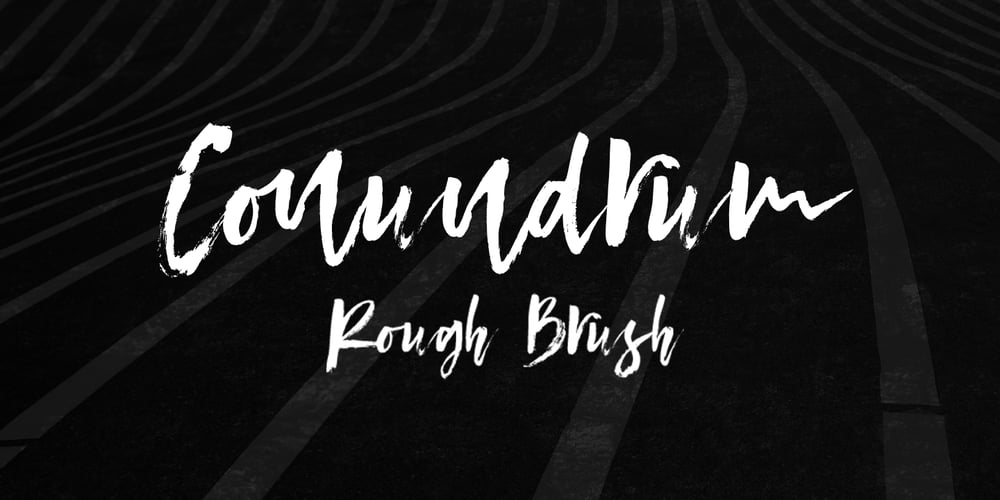
Conundrum Font Family was designed by Eko Kurniawan and published by Atom. Conundrum contains 1 styles and family package options. Conundrum is a cool, rough brush font, quickly painted on paper, so it looks natural and organic. If you want a font character that is unique and different than others, Conundrum is worth a try. With this bold concept it would be suitable if used for movie titles, magazine titles, covers, posters, etc.